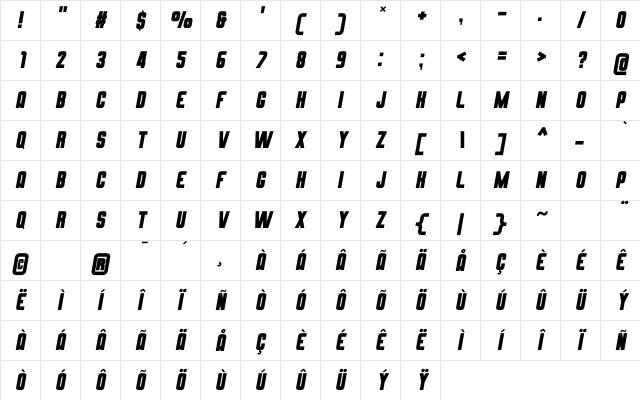
Alejo Solid Italic Free Font
Alejo Solid Italic
Design Context for Alejo Solid
Alejo Solid is a composed and adaptable typeface that performs quietly and consistently across a wide range of design contexts. The slanted form adds forward momentum and visual energy.
Pro Tip: Use Alejo Solid for emphasis, pull quotes, and subheadings where its slanted energy can add rhythm to the layout.